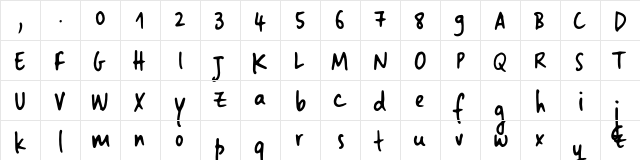
Landslide Sample Regular
| Foundry | Ana Parracho |
| Designer | Ana Parracho |
Design Context for Landslide Sample Typeface
Landslide Sample is a composed and adaptable typeface that performs quietly and consistently across a wide range of design contexts.